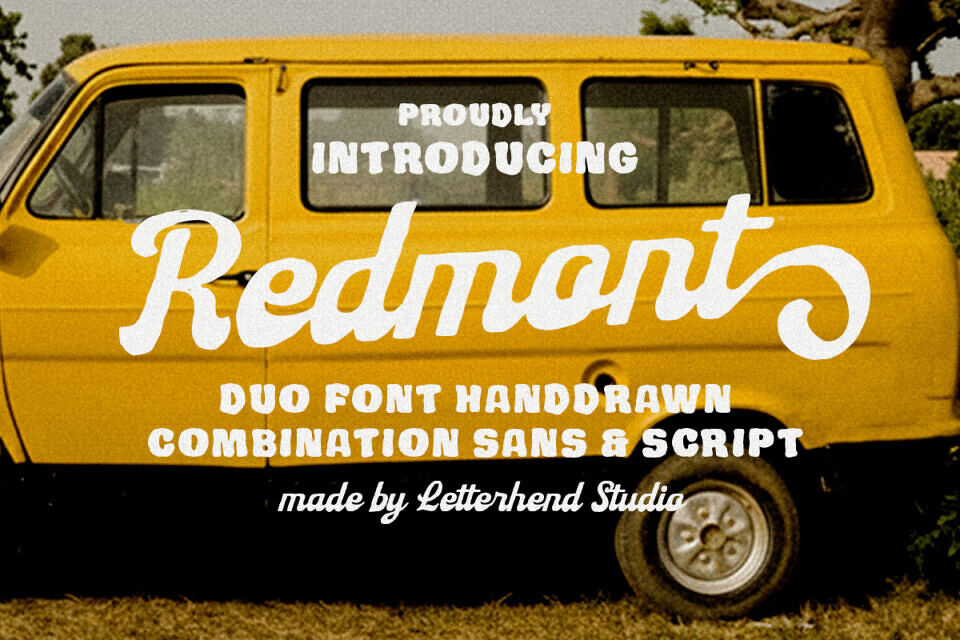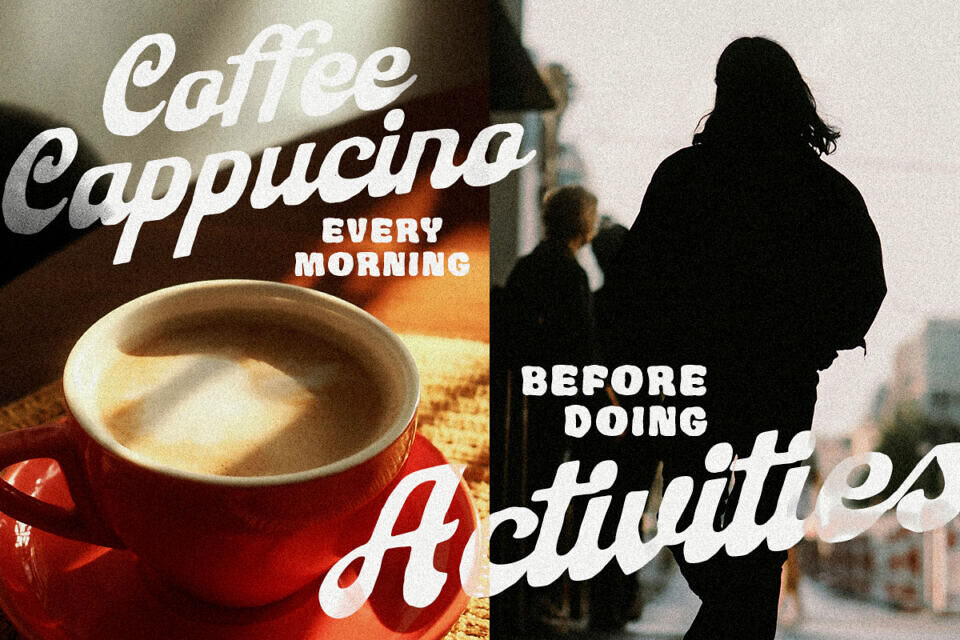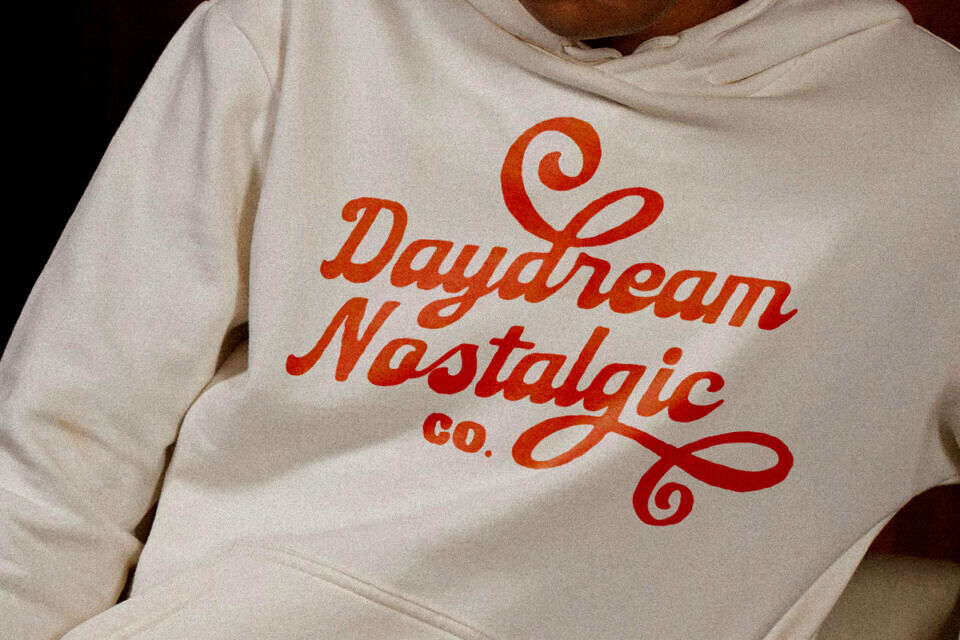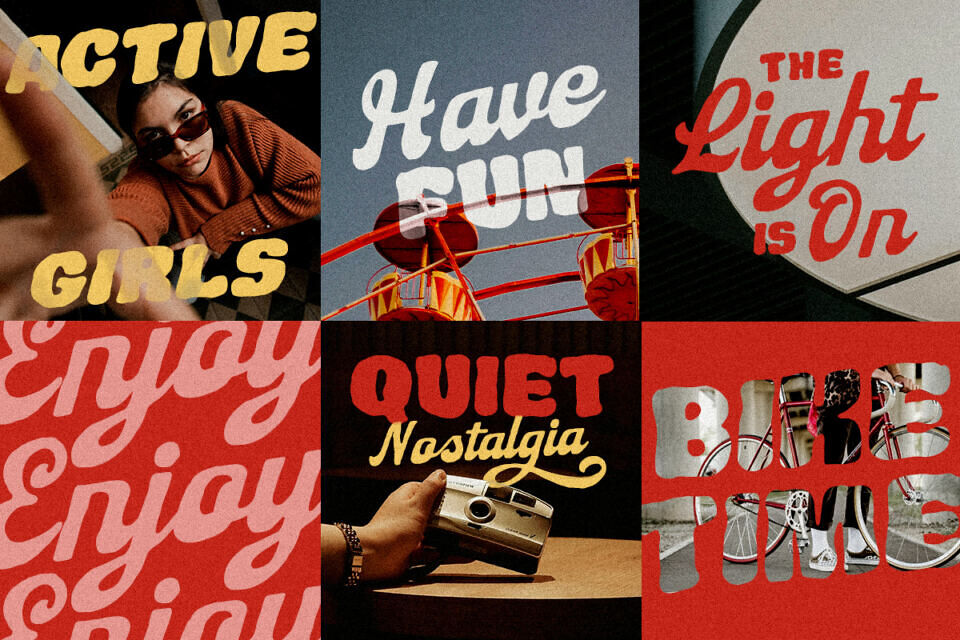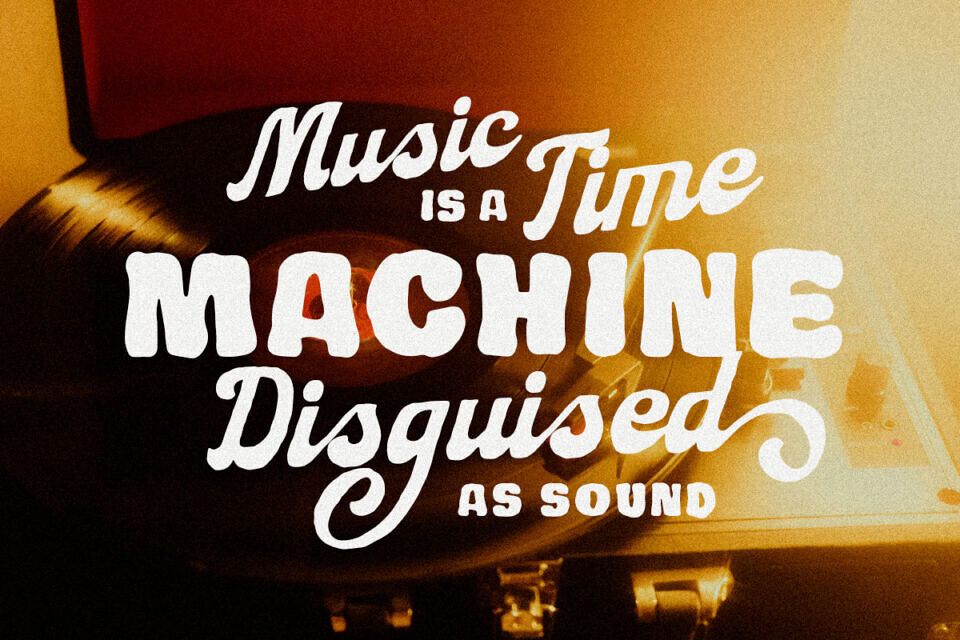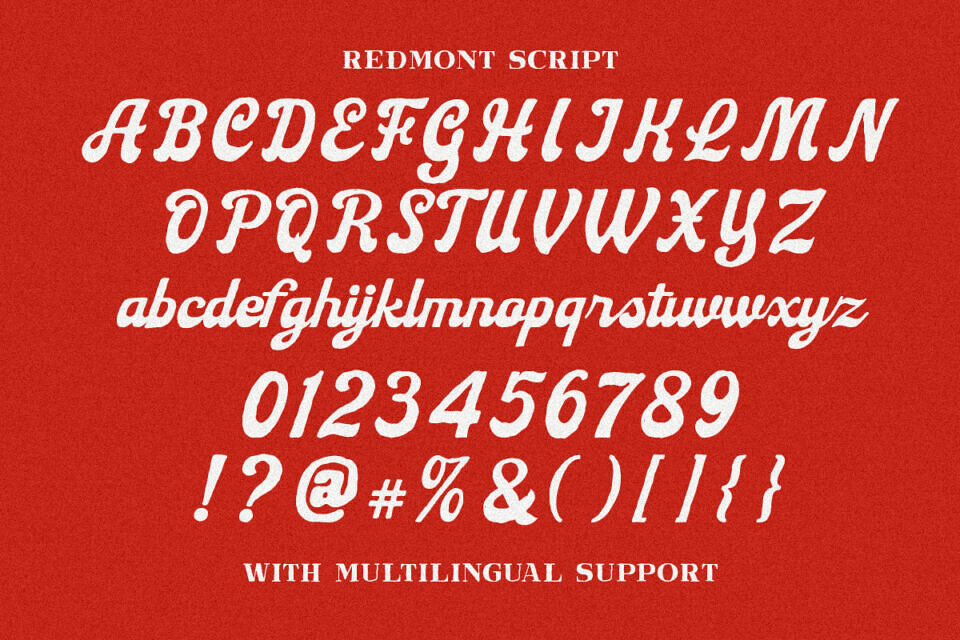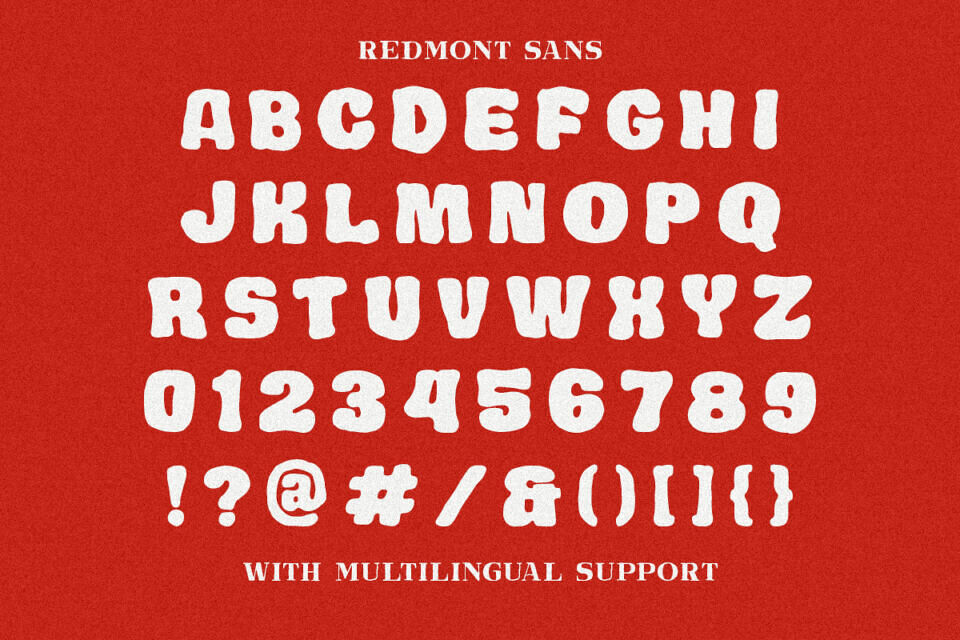
The Redmont font duo evokes a 1970s sunny road trip feel, with handdrawn, bold characters. The script features smooth, friendly curves, while the sans adds balance and clarity. This combination creates a playful yet readable font, perfect for adding a retro touch to designs.